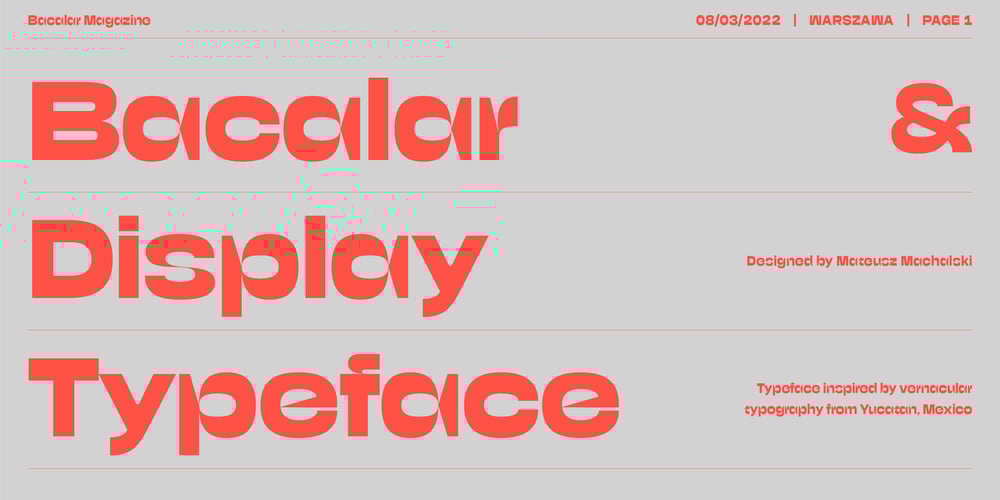
Bacalar Font Family was designed by Mateusz Machalski and published by Machalski. Bacalar contains 10 styles and family package options. Bacalar is inspired by the vernacular typography found on “colectivo buses” used to transport people in Yucatan peninsula (Mexico). Geometric forms contrast with very thin details and reversed contrast, thanks to which no one will pass by it indifferently. Bacalar consists of 10 width styles, which were created by mechanical stretching – because of that, whole family has a brutalist character.